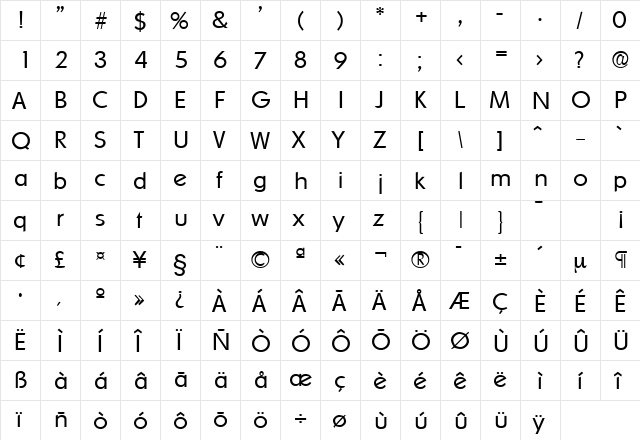
Ornitons-Serial-Light Regular
Design Context for Ornitons-Serial-Light Typeface
Ornitons-Serial-Light offers clean, dependable letterforms without strong stylistic allegiance, making it a practical choice for designers who need flexibility. The delicate stroke weight brings airiness and refinement to layouts.